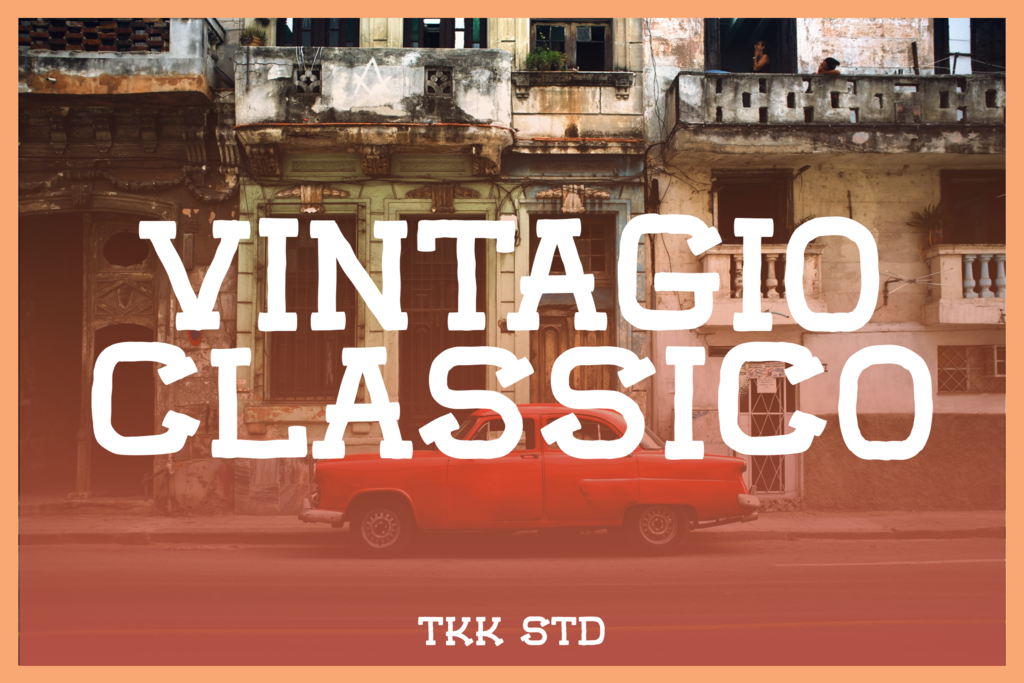
Vintagio Classico vintage font has a serif shape with hand-drawn feel, rough and vintage feel will make Vintagio Classico emphasize the old rebel passion, and adventure rage on every word you put on the screen.